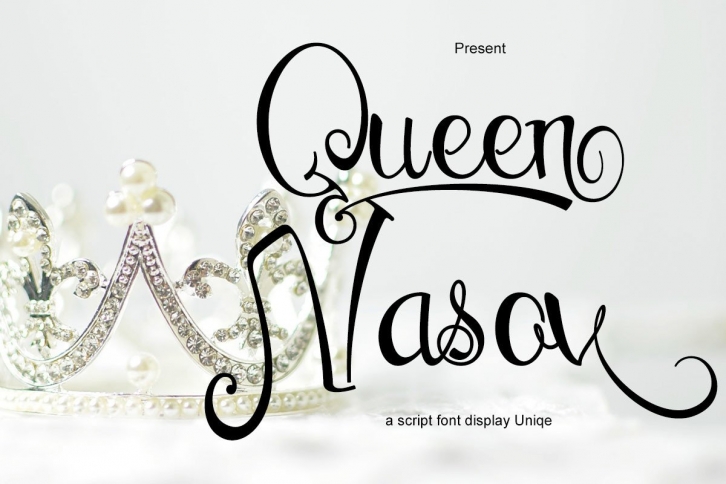
Queen Nasov is a thin lettered and graceful script font. Fall for its ravishing style and use it to create gorgeous designs. This font is PUA encoded which means you can access all glyphs and swashes with ease!